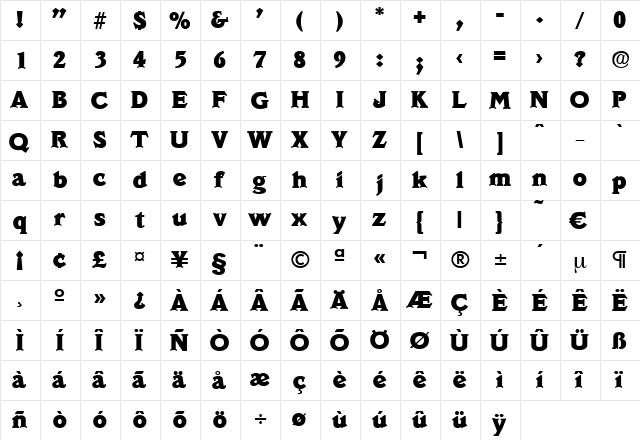
Veracruz-ExtraBold Regular
Design Context for Veracruz-ExtraBold Typeface
Veracruz-ExtraBold takes a measured approach to typography — its balanced proportions and neutral character make it a reliable workhorse for both digital and print work. The heavy weight commands attention and anchors typographic hierarchies.